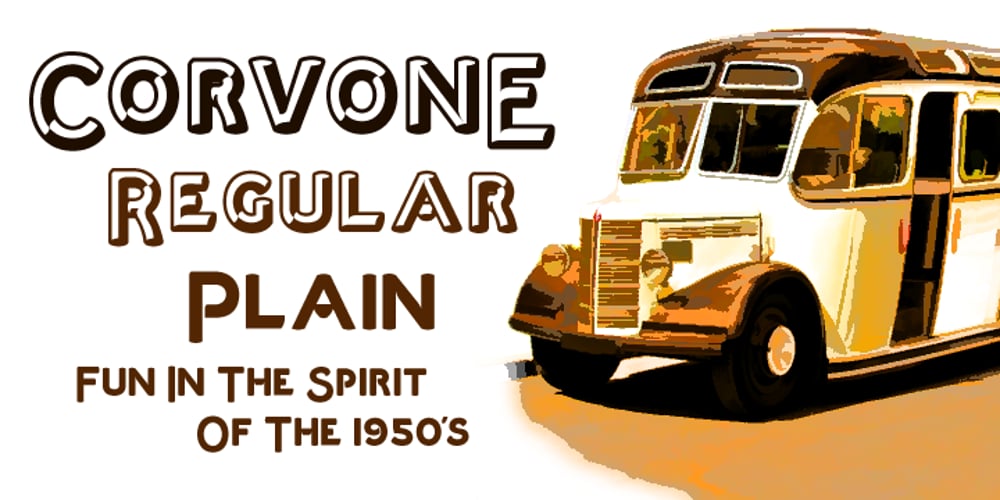
Corvone Font Family was designed by Paul James Lloyd and published by Greater Albion Typefounders. Corvone contains 2 styles and family package options. Corvone is a heavy bullnosed display family, inspired by the post war era’s ideas of modernity. Two faces are offered, plain—a solid black face, and regular—which employs a three-dimensional pipeline effect to add real emphasis. Use Corvone to give work a retro feel, and/or where you want to really drive your point home.